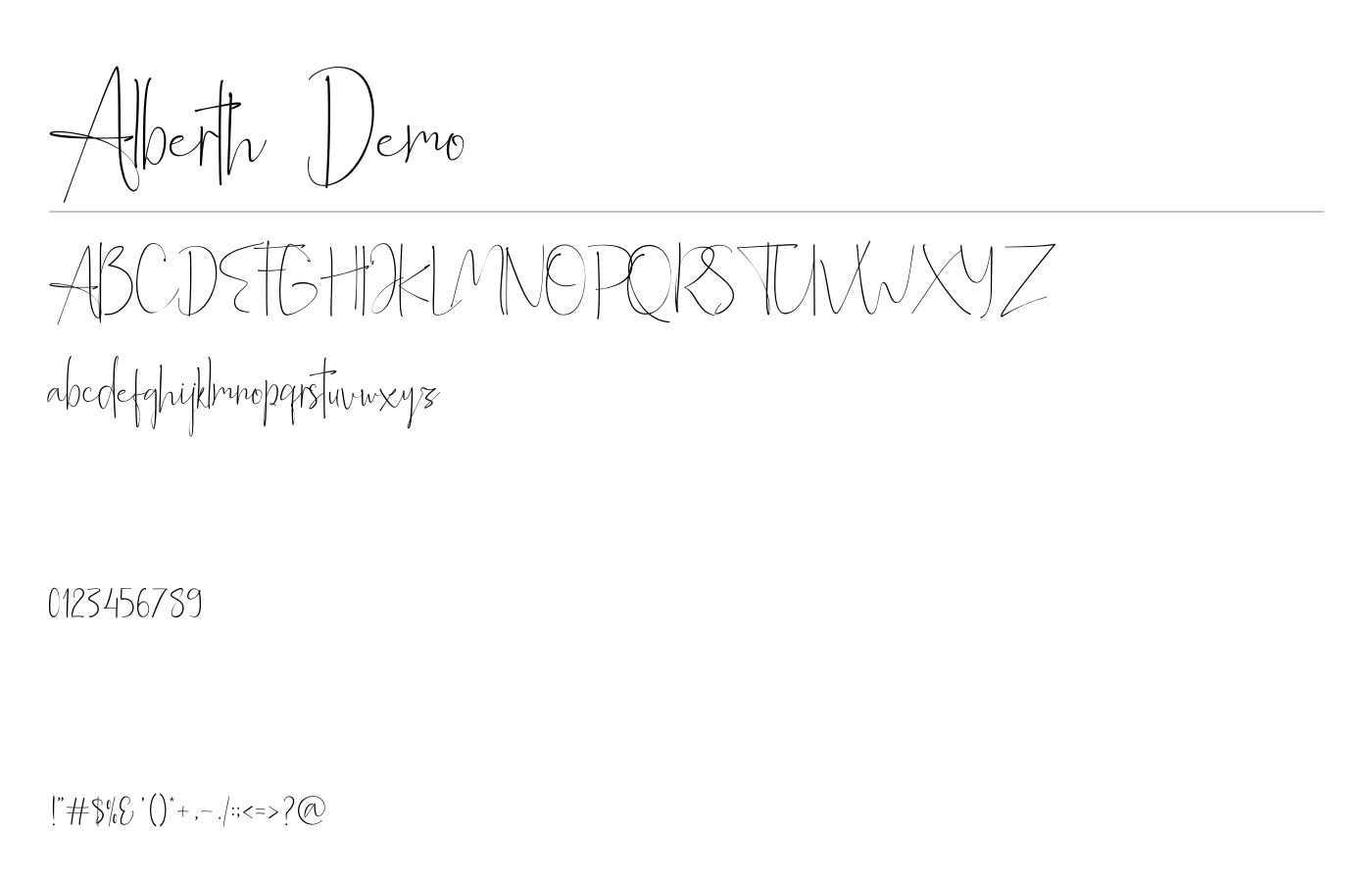
Alberth Demo is a delicate, handwritten script font with an airy and whimsical feel. Its thin strokes and elongated letterforms create an elegant yet playful personality, perfect for creative projects that need a personal, artistic touch. This font works beautifully in invitations, branding, and decorative headlines where a refined, unique style is desired.
Alberth Demo Font
About Alberth Demo Font